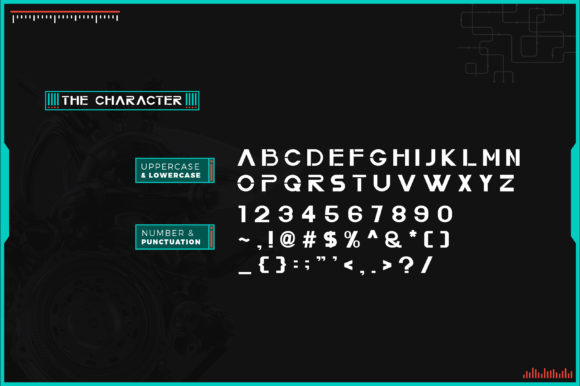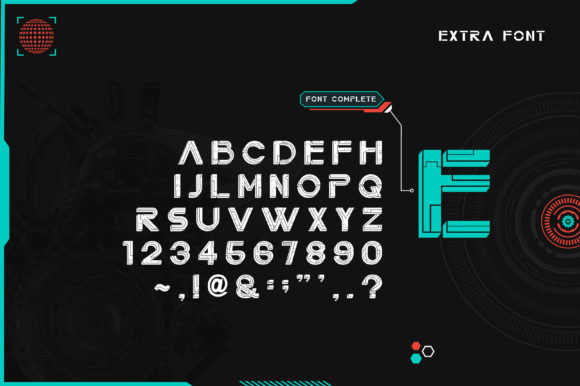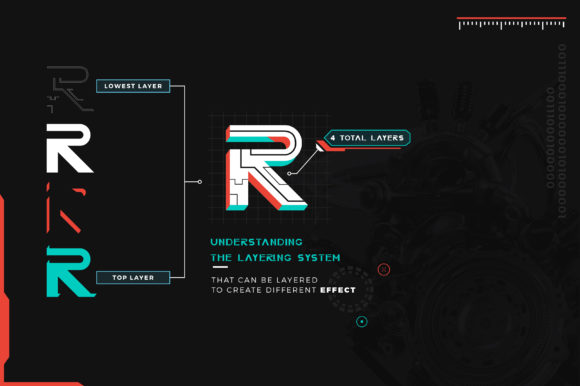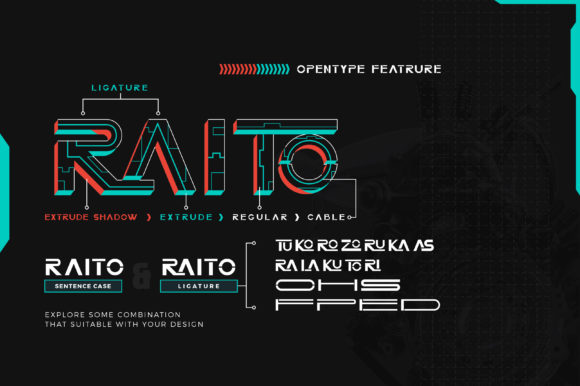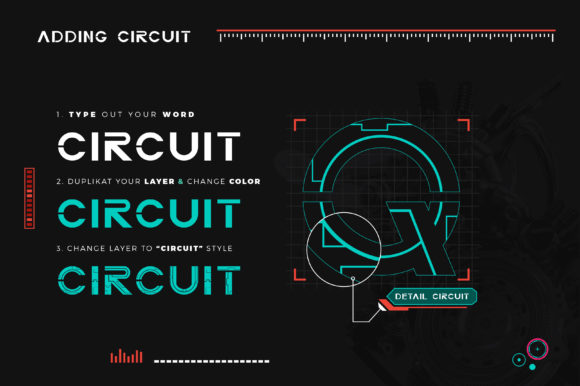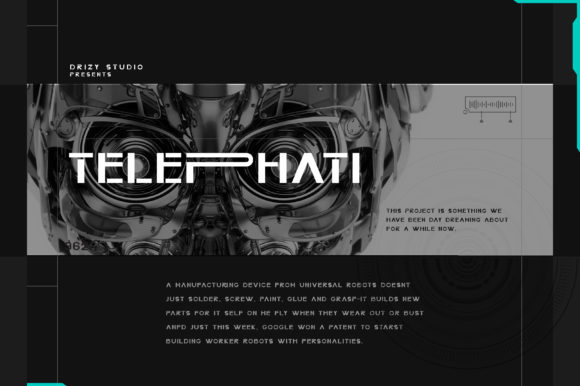
Astro Font: Elevate Your Design with Futuristic Geometry
In the realm of typography, a new star has emerged: Astro Font. This innovative, layered typeface is inspired by futuristic geometry, designed to make your text shine brighter than the rest. As a designer or crafter, you’re constantly on the lookout for fresh and exciting ways to make your work stand out. With Astro Font, you’ll have the perfect tool to add a touch of modernity and sophistication to your projects.
The Inspiration Behind Astro Font
Astro Font draws its inspiration from the sleek, avant-garde aesthetic of futuristic geometry. The creators of Astro sought to capture the essence of a futuristic world, where technology and innovation reign supreme. By distilling the geometric shapes and lines that define this style, they crafted a typeface that’s both modern and attention-grabbing.
Key Features of Astro Font
- Layered Design: Astro Font boasts a unique layered design, comprising multiple geometric shapes that can be stacked and combined to create a wide range of visual effects.
- Futuristic Aesthetic: The font’s futuristic geometry inspiration gives it a sleek, high-tech look that’s perfect for projects that require a cutting-edge feel.
- High Versatility: With Astro Font, you can create a multitude of different styles and effects, from minimalist and elegant to bold and eye-catching.
- Ease of Use: Despite its complex design, Astro Font is surprisingly easy to use, making it accessible to designers and crafters of all skill levels.
What Makes Astro Font Stand Out
So, what sets Astro Font apart from other typefaces on the market? For starters, its layered design allows for an unparalleled level of customization and flexibility. You can mix and match different geometric shapes to create a look that’s uniquely yours. Additionally, Astro Font’s futuristic aesthetic ensures that your text will stand out in a crowded design landscape.
Whether you’re a professional designer or a crafter looking to add a personal touch to your projects, Astro Font is the perfect choice. Its versatility and ease of use make it an excellent addition to any design toolkit. Here are just a few ways you can use Astro Font:
- Branding and Logo Design: Create a bold, eye-catching logo that showcases your brand’s personality and style.
- Graphic Design: Add a touch of modernity to your graphic design projects, from brochures and flyers to posters and infographics.
- Crafting and DIY Projects: Use Astro Font to add a professional touch to your crafting and DIY projects, such as handmade cards, gift tags, and more.
Tips for Getting the Most Out of Astro Font
To truly make Astro Font shine, here are a few tips to keep in mind:
- Experiment with Layering: Don’t be afraid to try out different layering combinations to achieve the desired effect.
- Play with Color: Use Astro Font’s geometric shapes to create a vibrant, colorful design that grabs attention.
- Mix and Match: Combine Astro Font with other typefaces and design elements to create a unique visual identity.
Astro Font is a game-changing typeface that’s sure to revolutionize the way you approach design. With its futuristic geometry inspiration, layered design, and high versatility, it’s the perfect tool for designers and crafters looking to make their mark. Whether you’re working on a professional project or a personal crafting endeavor, Astro Font is sure to help you create something truly out of this world.